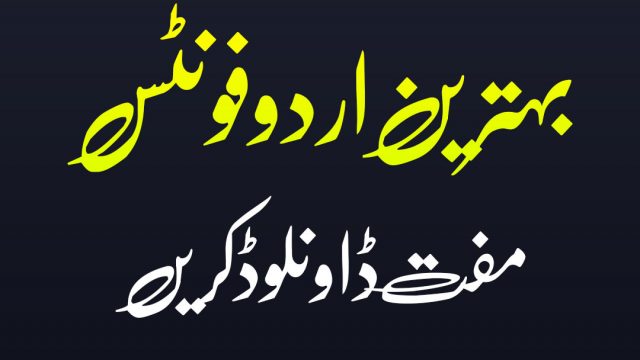
AlQalam Johar Nastaleeq Free Urdu Font
AlQalam Johar Nastaleeq Free. This font is specially designed for composing long texts in books. Composing text with this font looks like handwriting. Font source